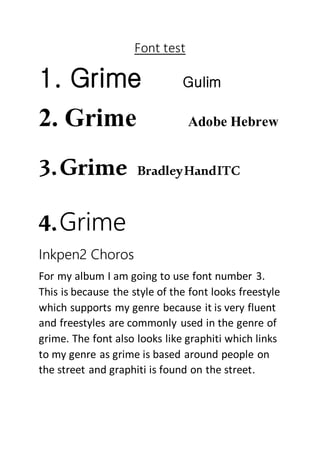
Font test
1. Grime Gulim
2. Grime Adobe Hebrew
3.Grime BradleyHandITC
4.Grime
Inkpen2 Choros
For my album I am going to use font number 3.
This is because the style of the font looks freestyle
which supports my genre because it is very fluent
and freestyles are commonly used in the genre of
grime. The font also looks like graphiti which links
to my genre as grime is based around people on
the street and graphiti is found on the street.
I am not choosing the other fonts because I think
they’re too formal for the genre my artist is
adapting and they are not very free hand.
These fonts are all from Word and the one that I
have chosen is Bradley Hand ITC.